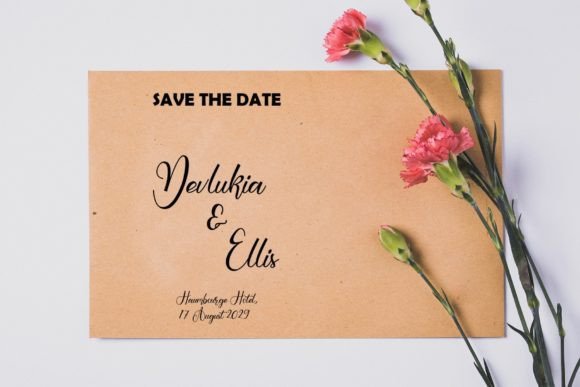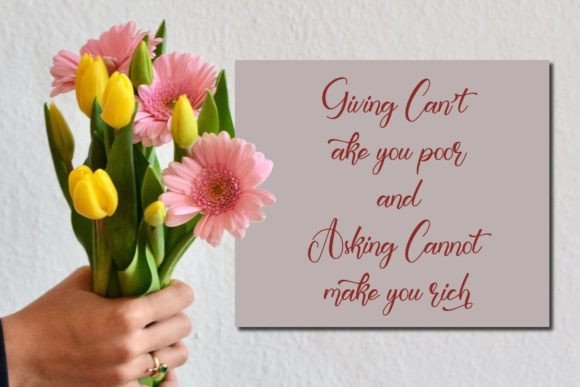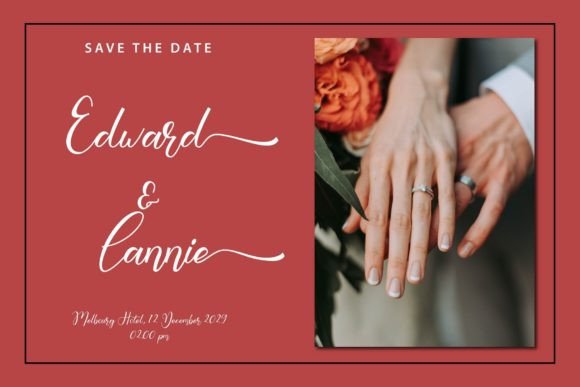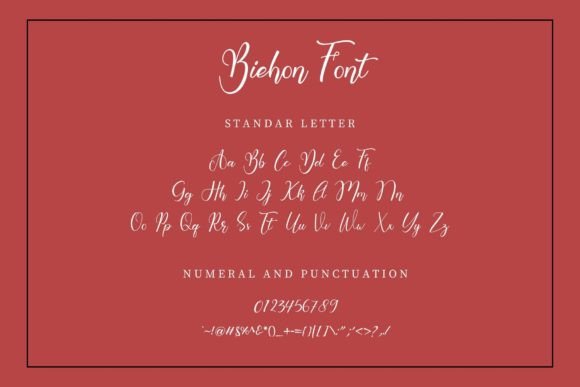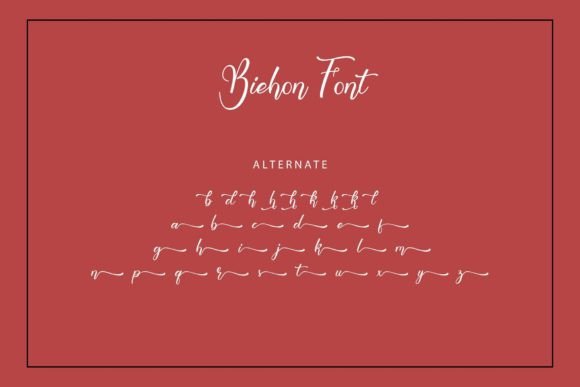
Biehon Font
About Biehon Font
Biehon font is crafted with a delightful touch evident in every curve, making it highly suitable for creating visually appealing designs in the realms of fashion, branding, logos, and beyond. Its sweet and elegant aesthetic adds a touch of charm and sophistication, making it a perfect choice for projects that require a beautiful and stylish appearance.
The font’s graceful curves and artistic design make it ideal for fashion-related projects. Whether you’re designing clothing labels, fashion logos, or promotional materials for a trendy brand, Biehon font enhances the overall visual appeal with its sweet and fashionable touch. Its seamless blend of elegance and creativity adds a unique character to fashion-related designs, making them stand out in the competitive industry.
In branding, Biehon font adds a sense of refinement and allure. Its sweet touch and carefully crafted letterforms create a memorable visual identity for brands, capturing the essence of sophistication and style. Whether you’re working on luxury brands, beauty products, or upscale services, Biehon font lends an air of elegance to the brand’s image, leaving a lasting impression on the audience.
Additionally, Biehon font is versatile enough to be applied in various design contexts, making it suitable for a wide range of creative projects. Its sweet and stylish appearance makes it an excellent choice for product packaging, invitations, advertisements, and more. Whether you’re creating a charming wedding invitation or designing eye-catching promotional materials, Biehon font elevates the overall design with its delightful and elegant presence.
Incorporating Biehon font into your projects allows you to infuse them with a touch of sweetness and sophistication. Its beautifully crafted curves and sweet demeanor make it a popular choice among designers seeking fonts that evoke a sense of beauty and charm. By using Biehon font, you’re selecting a typeface that brings creativity and elegance to your designs, making them visually captivating and appealing to the audience.
So, whether you’re designing a fashion label, creating a captivating brand logo, developing elegant invitations, or working on any other creative endeavor, let Biehon font be your choice. Its sweet and charming touch adds a layer of beauty and style, transforming your designs into captivating works of art that leave a lasting impression. Embrace the sweetness of Biehon font and watch your projects come to life with elegance and sophistication.